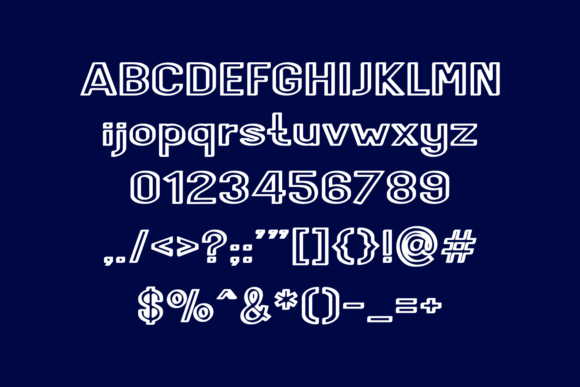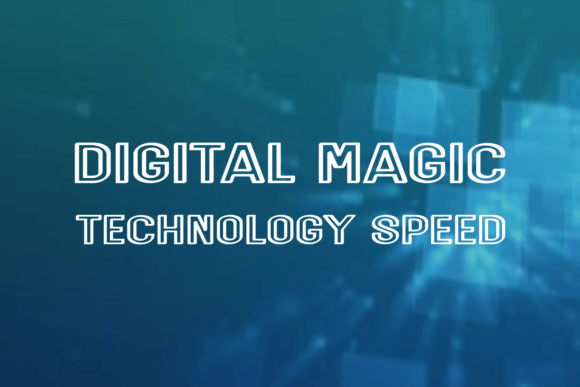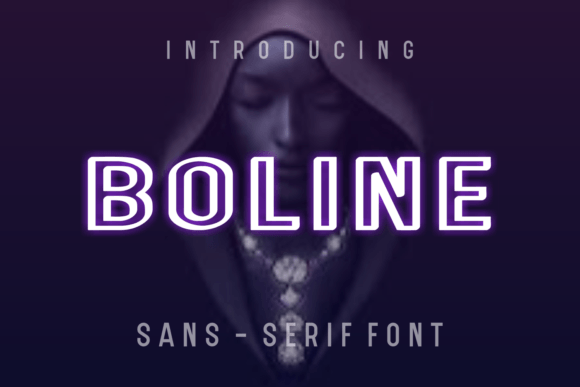
Boline Font: Elevate Your Designs with a Cool and Unique Display Font
In the world of typography, a font can make or break a design. It’s the foundation upon which the entire visual aesthetic is built. For designers and crafters looking to add a touch of personality to their creations, Boline Font is an excellent choice. This cool and unique display font is neatly crafted and highly detailed, making it a wonderful asset to any font library.
What Makes Boline Font Stand Out?
Boline Font is not just another font; it’s a statement piece. Its unique design and high level of detail set it apart from more generic fonts. Whether you’re working on a branding project, a website, or a craft, Boline Font has the potential to elevate your creation and make it stand out. Its versatility means it can be used across a wide range of topics and themes, making it a valuable addition to your font collection.
Key Features of Boline Font
- Unique Design: Boline Font boasts a one-of-a-kind design that will add a touch of originality to your projects.
- Highly Detailed: The font’s high level of detail ensures that it looks great in both digital and print formats.
- Versatile: Suitable for a wide range of projects, from branding and advertising to crafting and DIY tutorials.
- Easy to Read: Despite its unique design, Boline Font remains easy to read, making it perfect for display text.
How to Use Boline Font in Your Designs
Incorporating Boline Font into your designs is straightforward. Here are a few ideas to get you started:
- Branding Projects: Use Boline Font as a logo or as part of your brand’s visual identity to add a touch of personality.
- Website Design: Add Boline Font to your website’s header or title sections to create a memorable first impression.
- Crafting and DIY Tutorials: Use Boline Font in your crafting and DIY tutorials to add a professional touch.
- Social Media Graphics: Incorporate Boline Font into your social media graphics to make them stand out.
Tips for Getting the Most Out of Boline Font
To maximize the impact of Boline Font, consider the following tips:
- Pair it with Other Fonts: Combine Boline Font with complementary fonts to create visual interest.
- Experiment with Colors: Try Boline Font with different colors to see what works best for your design.
- Use it Sparingly: While Boline Font is eye-catching, it’s best used sparingly to avoid overwhelming the viewer.
Boline Font is a cool and unique display font that can elevate any design. Its highly detailed and versatile nature makes it suitable for a wide range of projects. By incorporating Boline Font into your font library, you’ll have a valuable resource at your disposal to enhance your creations. Whether you’re a designer, crafter, or DIY enthusiast, Boline Font is sure to become a favorite.